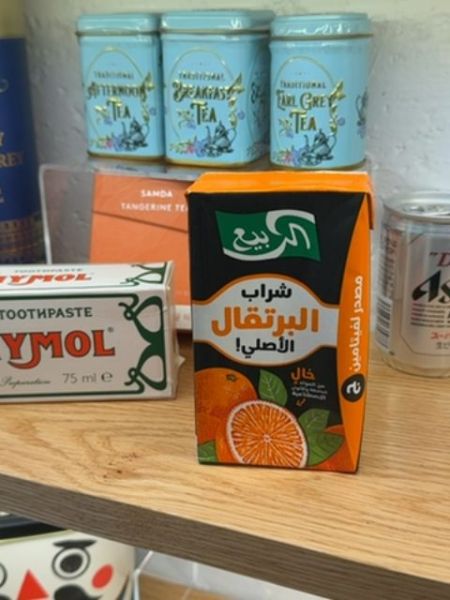
Al-Rabie Orange Drink
A refreshing beverage made from pure orange juice, designed to quench thirst and provide a citrus flavor.
1980
Saudi Arabia
The typography on the packaging uses bold, rounded Arabic script for the product name, giving it a friendly and approachable feel. The fonts used are clear with a strong contrast against the colored background, enhancing readability while maintaining an elegant and traditional look.
The packaging features a compact orange box with images of whole and sliced oranges, indicating the flavor of the beverage. The design includes an attractive mix of colors with green, black, and orange, making it visually appealing and easy to identify on the shelf.
- Al-Rabie is a leading brand in the Middle East for juices.
- The brand offers a variety of flavors and juices.
- It emphasizes high-quality ingredients and natural flavors.